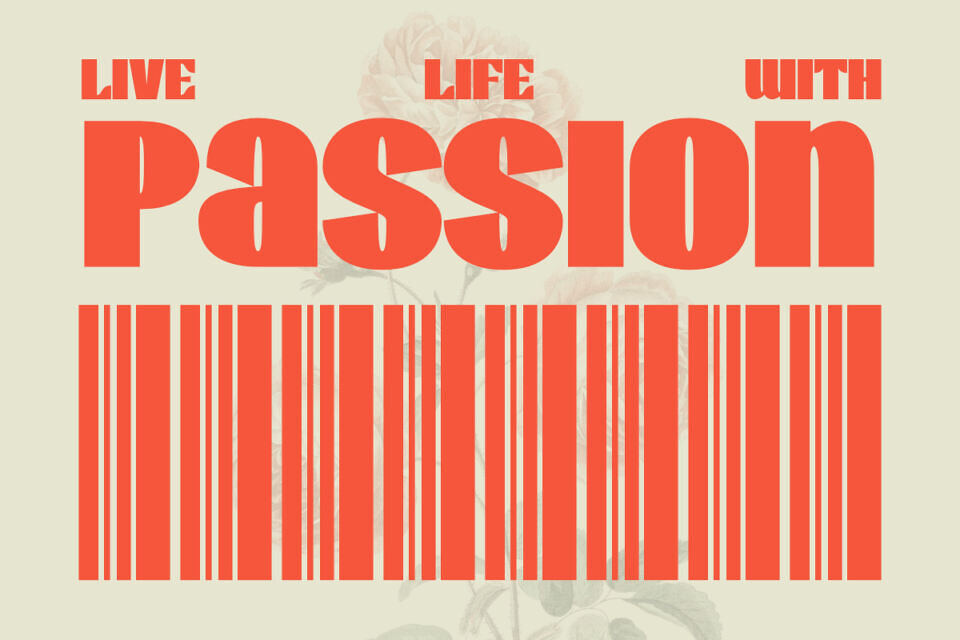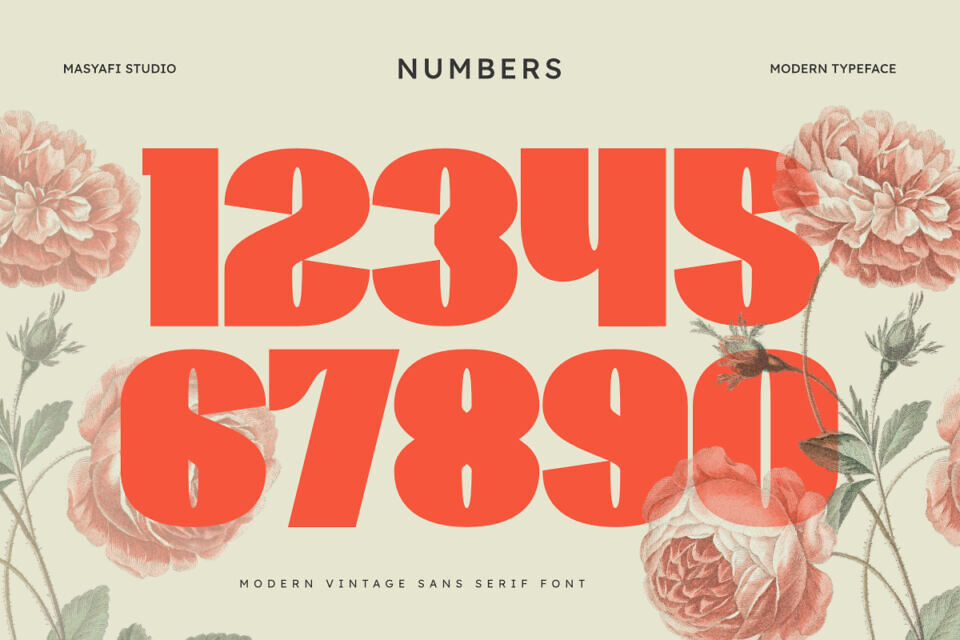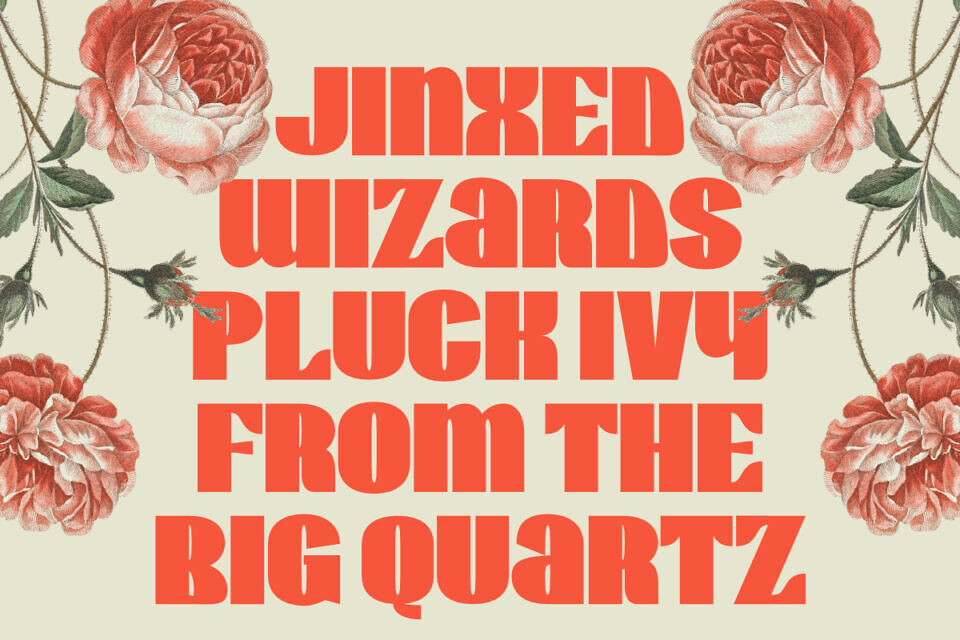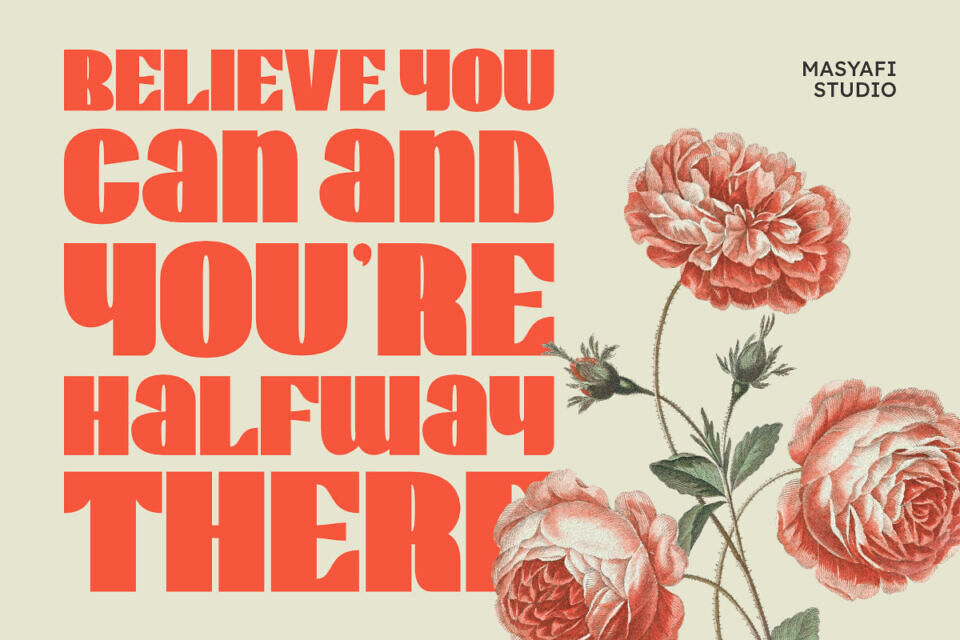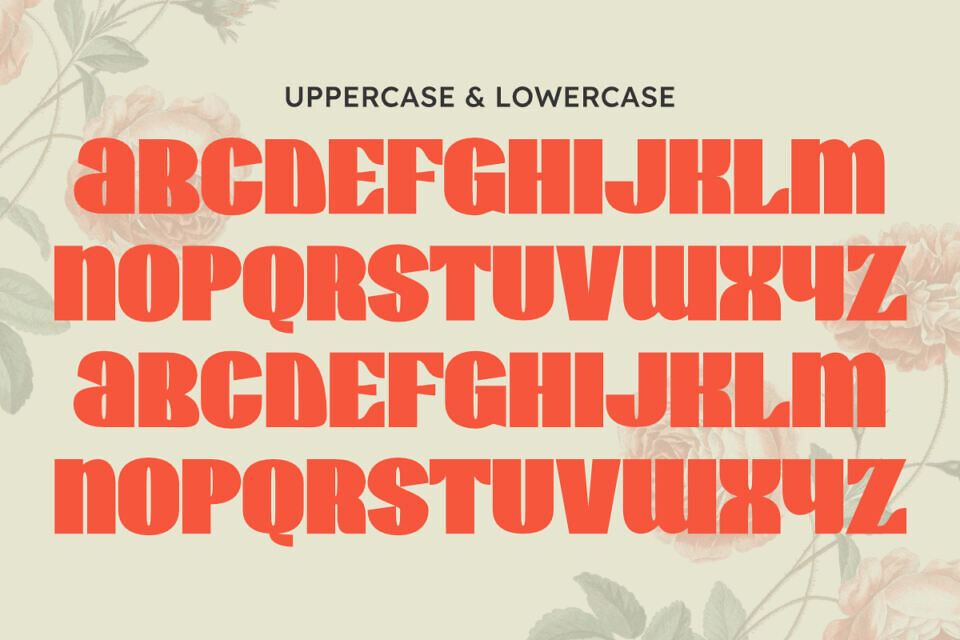
Wirklich Font
Wirklich is a bold modern vintage sans serif font that seamlessly blends contemporary style with classic charm. This typeface features a strong and impactful presence, characterized by its clean, geometric forms and a subtle nod to retro aesthetics.
Its commanding yet refined appearance makes it incredibly versatile for a wide range of design applications, including striking headlines, distinctive logotypes, sophisticated branding, and engaging editorial designs. Let Wirklich bring a unique and memorable character to your next creative endeavor.